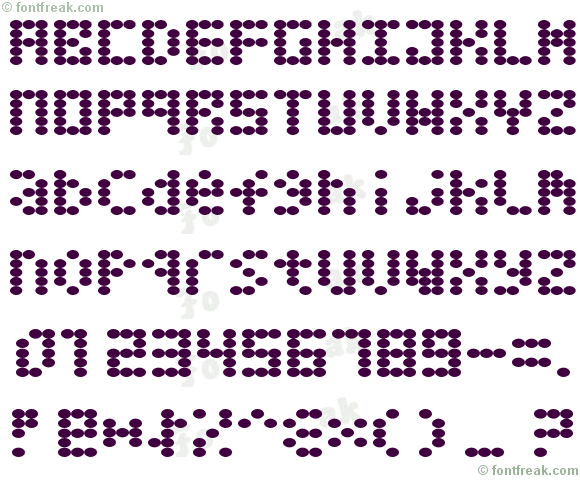
Greaseballs
About Greaseballs
Greaseballs is a unique decorative font designed by Pizzadude, falling into the category of display typefaces. This font features a playful and whimsical style, characterized by its bold, rounded letterforms that resemble a series of playful dots. The stroke weight is consistent throughout, giving it a uniform appearance that is both eye-catching and fun. Its spacious letter spacing enhances readability while maintaining a lively aesthetic, making it particularly suited for various creative projects.
This font is perfect for a variety of use cases, including vibrant restaurant menus that aim to capture the attention of diners, eye-catching movie posters that need to convey a sense of excitement, and playful event flyers that require a touch of whimsy. Additionally, Greaseballs works wonderfully for children’s book covers or educational materials, where a lighthearted and engaging typeface can make a significant impact. Its versatility makes it a great choice for graphic designers looking to inject some personality into their projects.
Targeting graphic designers, small business owners, and content creators, Greaseballs offers an avenue for creative expression that stands out in a crowded market. The font allows users to add a distinctive flair to their designs, making it an excellent choice for those looking to break away from conventional typography.